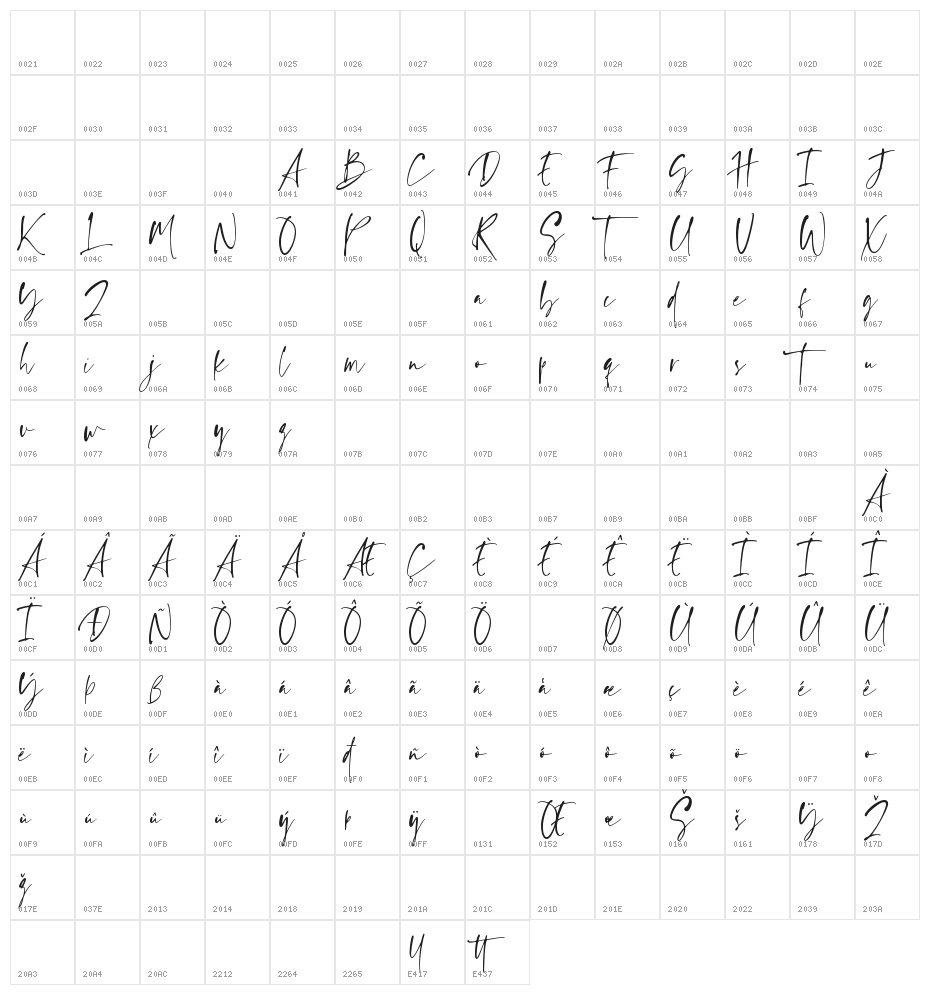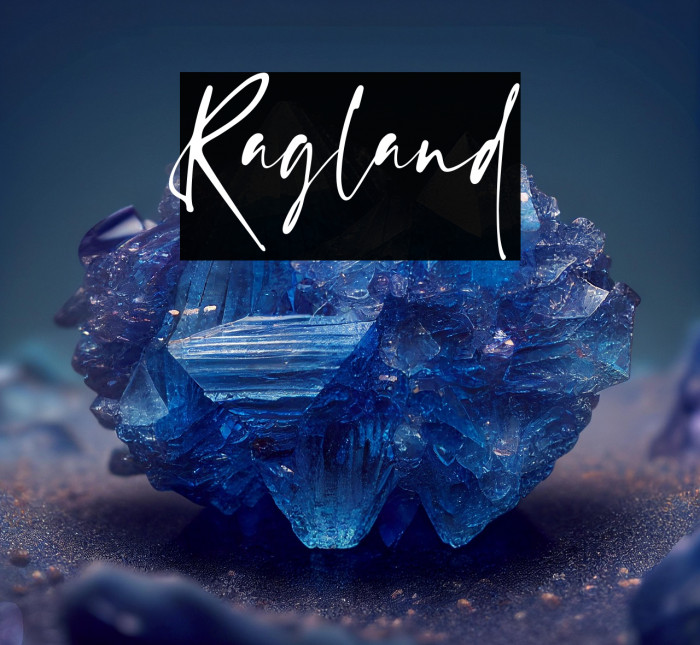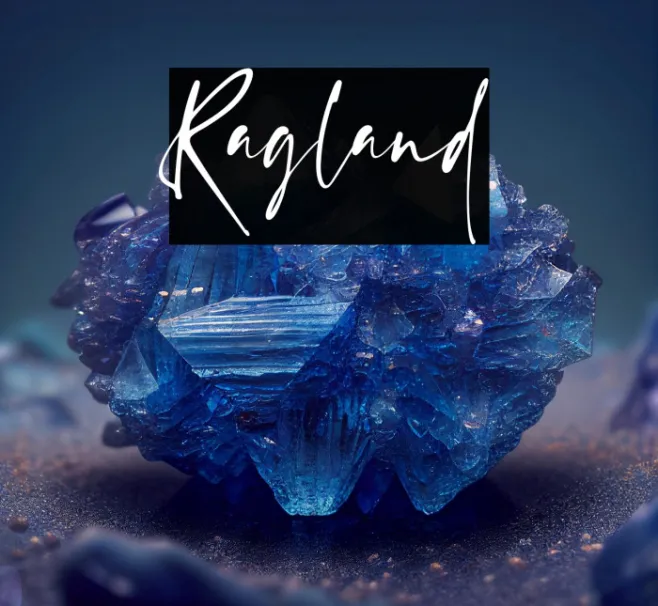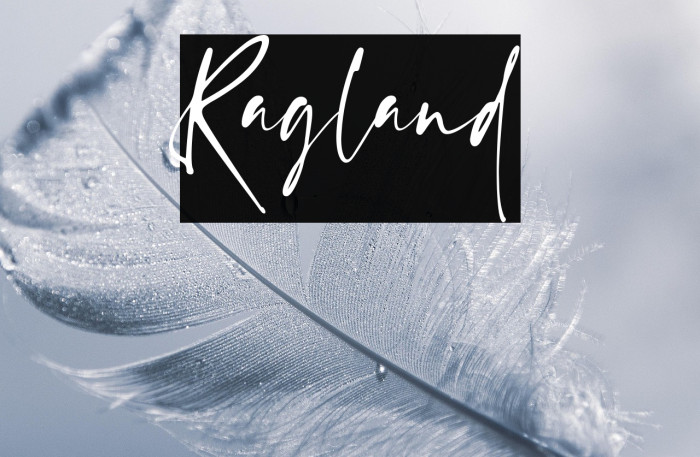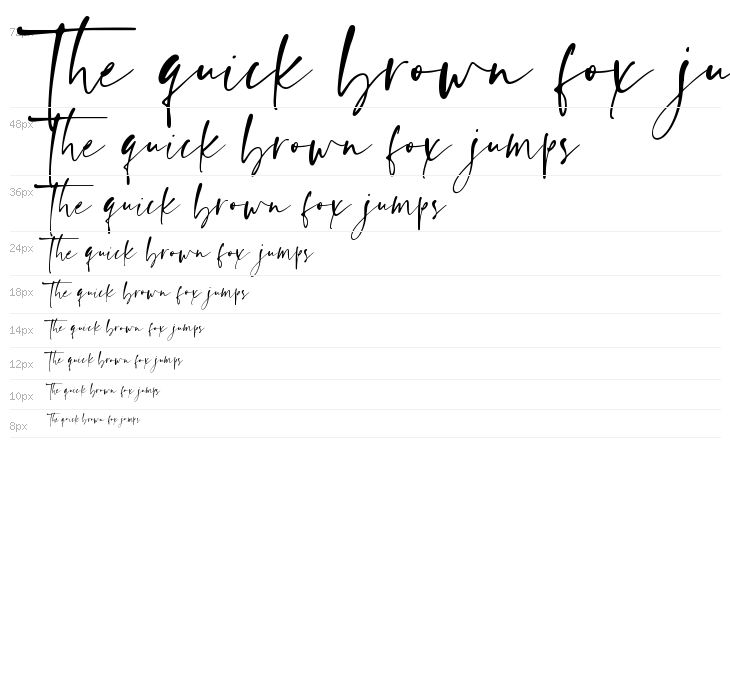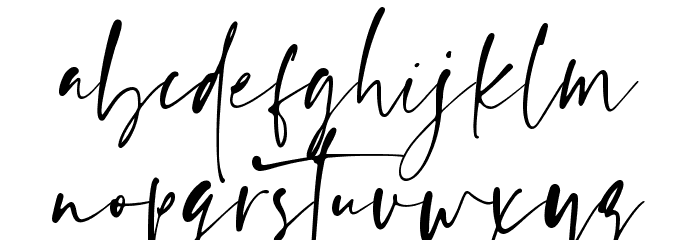
Ragland Font
Ragland Description
This font exudes a lively and artistic flair, characterized by its fluid, handwritten style. The strokes are dynamic and varied, with a natural flow that mimics the movement of a brush or pen. The uppercase letters are bold and expressive, while the lowercase letters maintain a consistent rhythm, adding to the overall elegance. The font's organic curves and loops give it a playful yet sophisticated appearance, making it suitable for creative and personal projects. Its unique style is perfect for capturing attention and conveying a sense of individuality.
| Proposed Projects | Ideal for wedding invitations, greeting cards, branding, and artistic projects. |